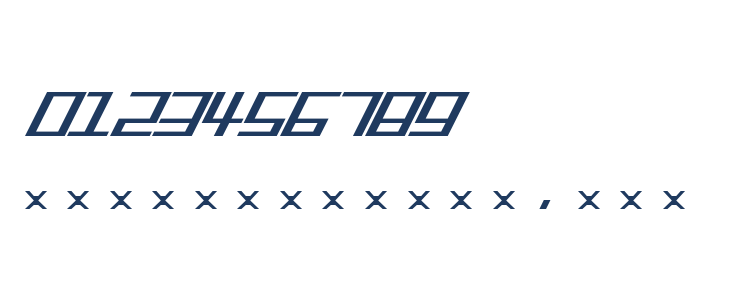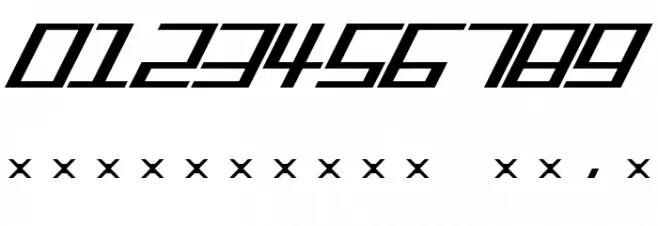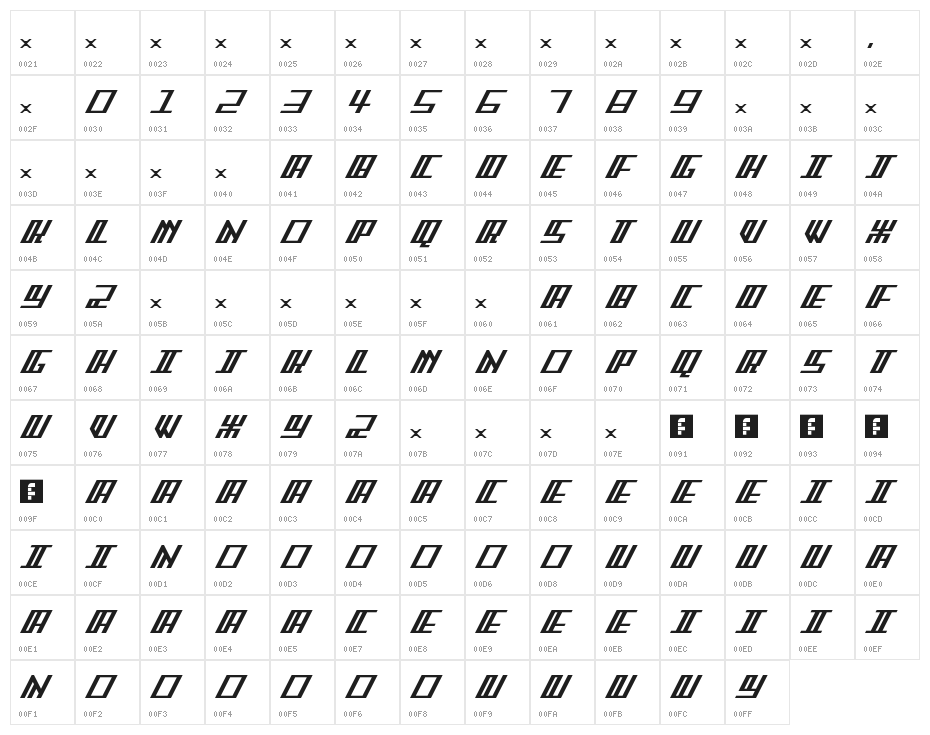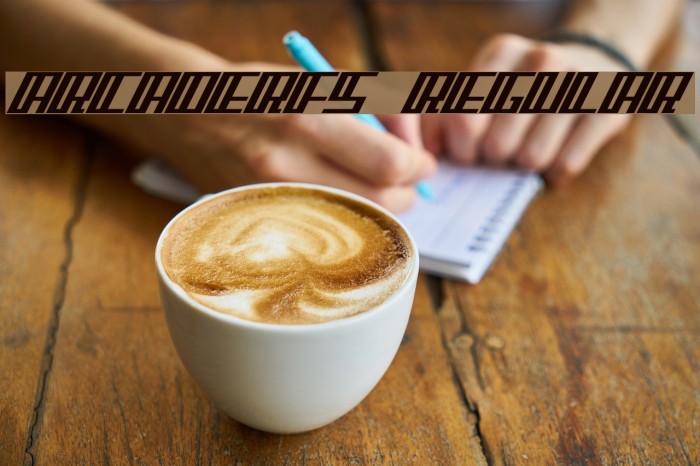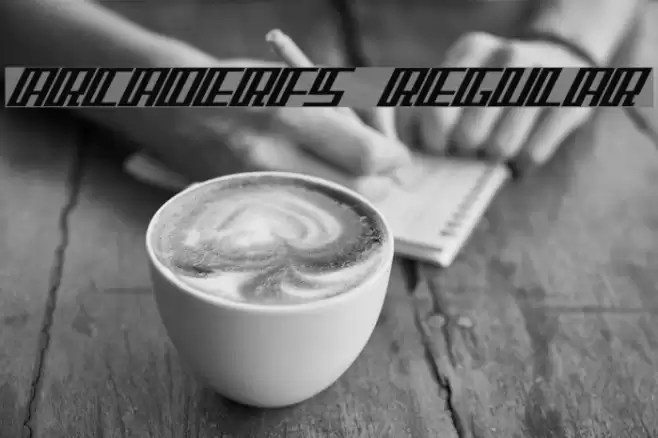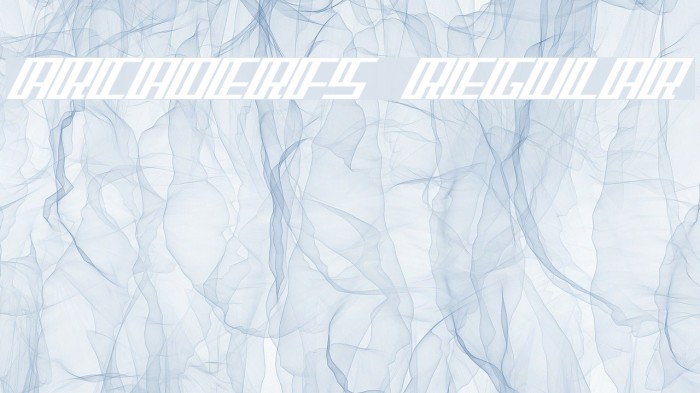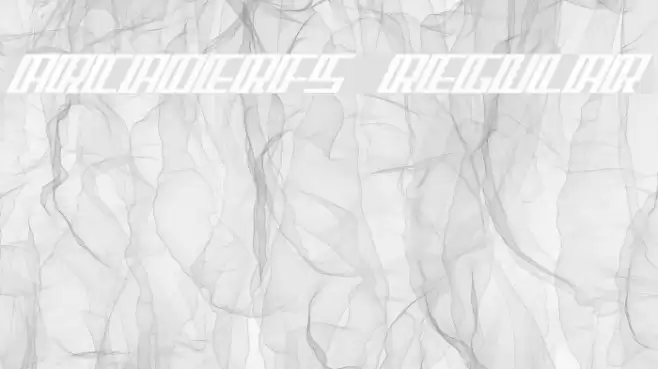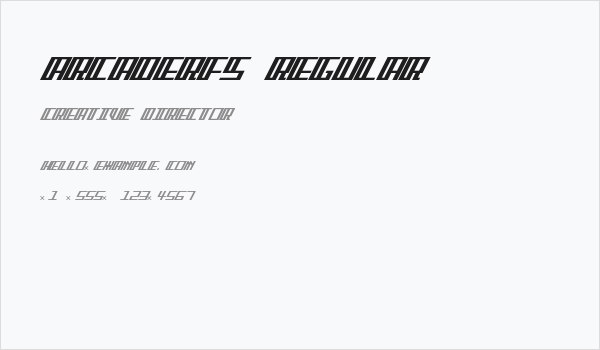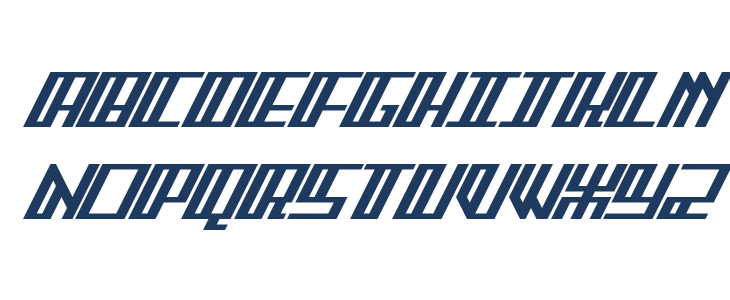
ArcaderFS Regular Font
ArcaderFS Regular Description
This font features a bold, angular design reminiscent of retro arcade games. The characters are constructed with sharp, geometric lines and a distinct slant, giving them a dynamic and futuristic appearance. The uppercase letters are particularly striking, with a consistent height and width that enhances readability. The numerals and special characters maintain the same stylistic approach, ensuring a cohesive look across all text elements. This font's unique style makes it ideal for projects that require a strong visual impact.
| Overall Style | Retro, Futuristic |
| Proposed Projects | Ideal for video game graphics, posters, and branding that seeks a retro or futuristic vibe. |